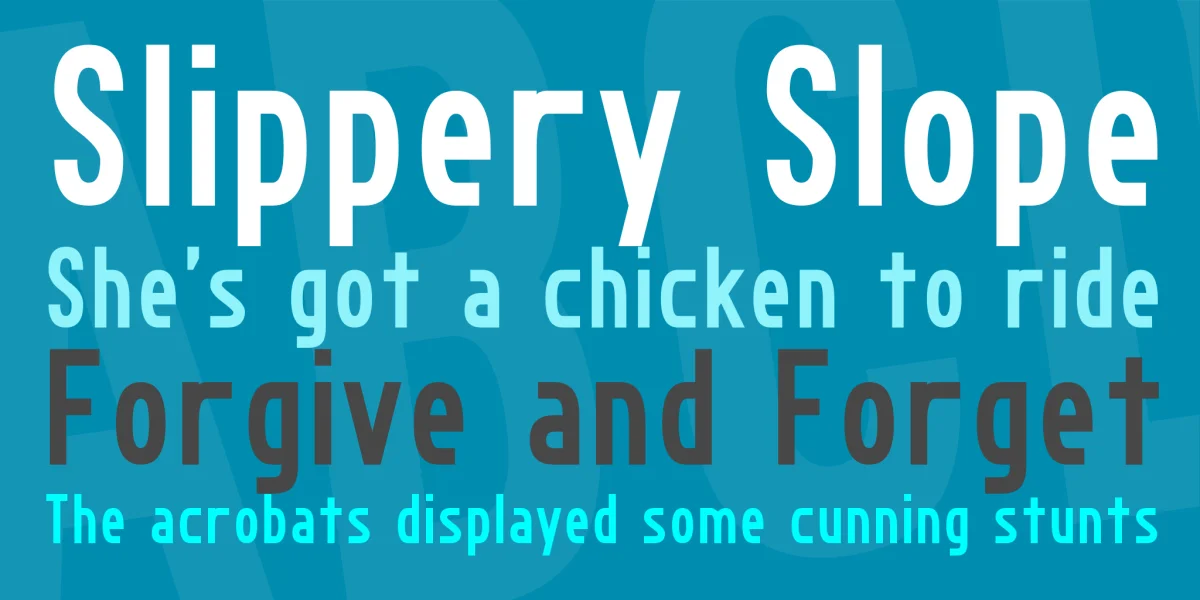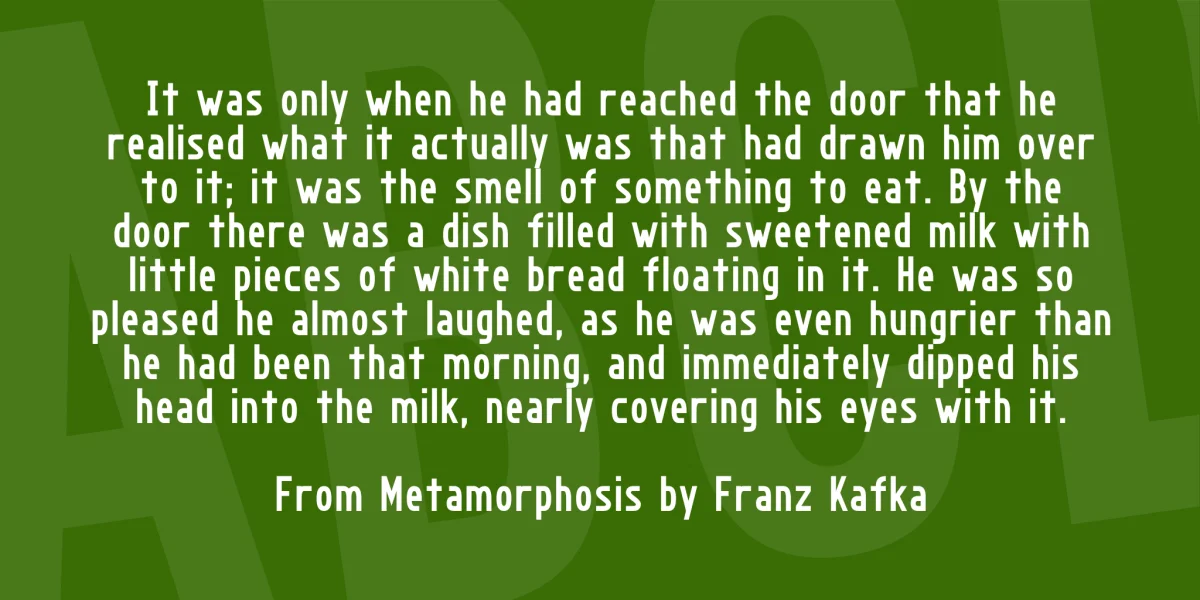
This is a tall, slim font, useful for all occasions. Try it out on a poster. Include it in a logo. Take it with you for a night out on the town and impress your friends.